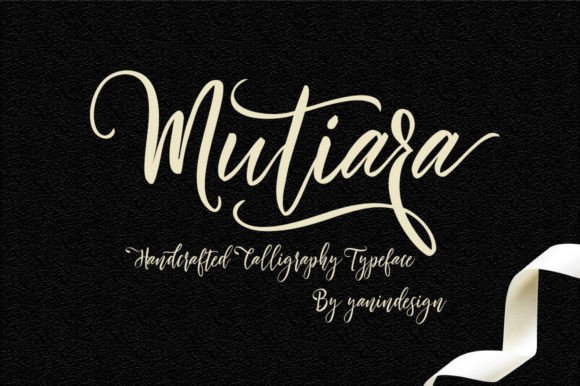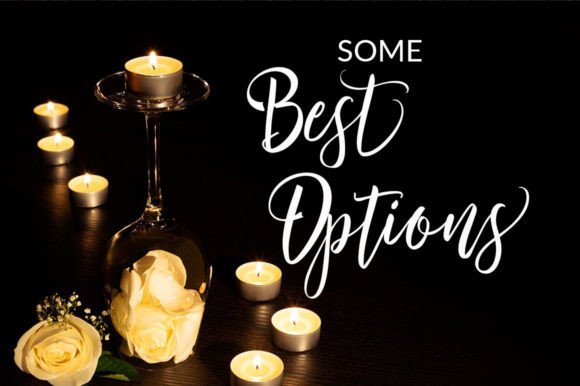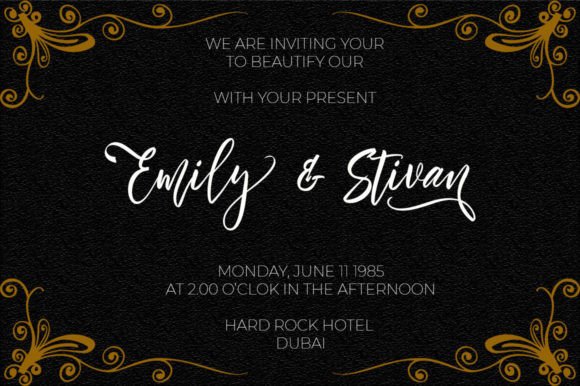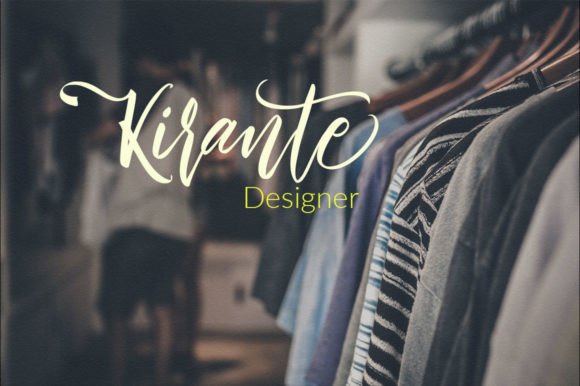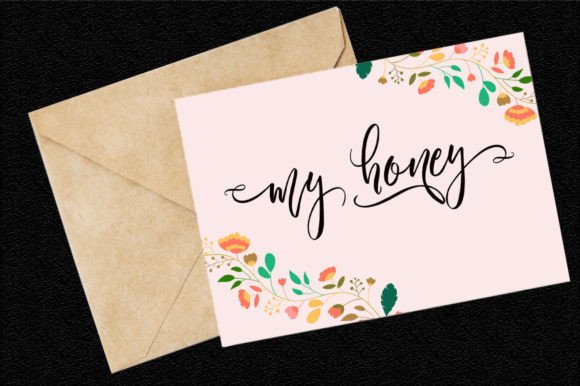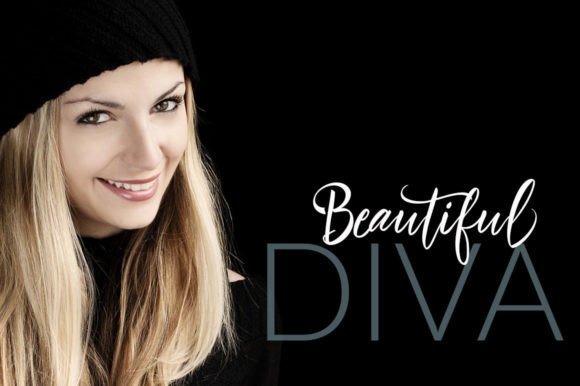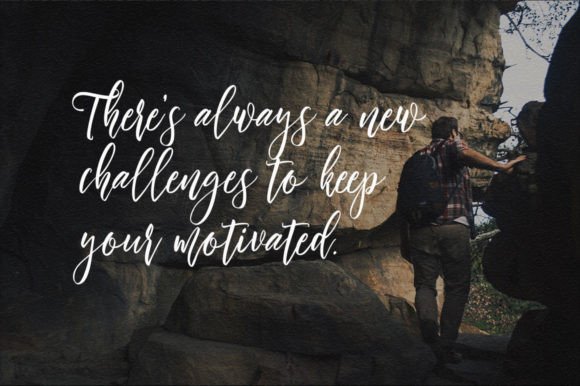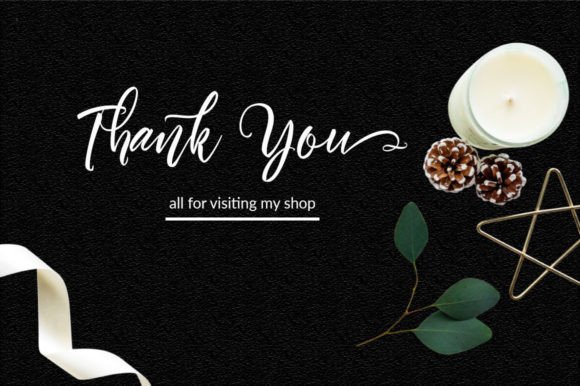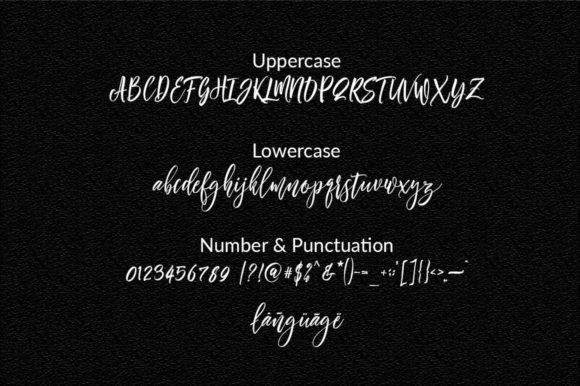
Mutiara Font
About Mutiara Font
Introducing “Mutiara,” a popular and professional script font designed to elevate the luxurious, elegant, and attractive appeal of your products. This font is versatile, fitting seamlessly into both formal and informal settings. With its modern style and touch of creative flair, “Mutiara” is perfect for a wide range of creative applications, including invitation cards, letterheads, website logos, social media graphics, banners, advertisements, brochures, packaging products, leather items, and any product that requires distinctive typography.
The refined and professional aesthetic of “Mutiara” makes it an excellent choice for products that aim to convey a sense of luxury and elegance. Whether applied to branding, marketing materials, or packaging, this font adds a touch of sophistication.
In invitation cards, “Mutiara” contributes to a stylish and memorable design. Its modern script design enhances the overall aesthetic, making your invitations stand out with a luxurious and attractive look.
For letterheads and website logos, the professional and creative touch of “Mutiara” creates a distinctive visual identity. It is well-suited for businesses and individuals seeking to communicate a sense of modernity and innovation.
In social media graphics and banners, this font captures attention with its attractive and modern style. It can be utilized to create eye-catching visuals that align with contemporary design trends.
Advertisements and brochures benefit from the elegant and attractive nature of “Mutiara.” The font adds a touch of creativity that enhances the overall appeal of your promotional materials.
Packaging products, especially those requiring sophisticated typography, can leverage the luxurious and modern characteristics of “Mutiara” to create a premium look.
From leather products to a wide range of items requiring distinctive writing, “Mutiara” is designed to enhance the creative ideas in your projects.
In summary, “Mutiara” is more than just a font; it’s a design asset crafted to bring a touch of luxury, elegance, and attractiveness to your products. Whether applied to formal or creative contexts, this font is designed to make your designs stand out and leave a lasting impression on your audience.